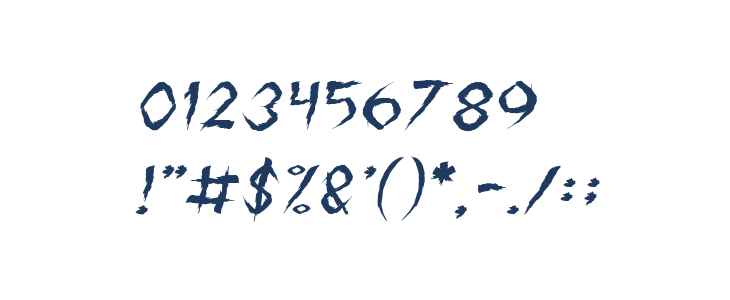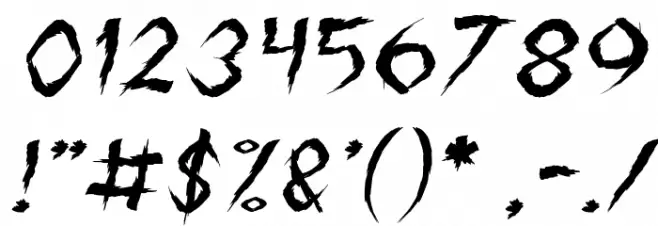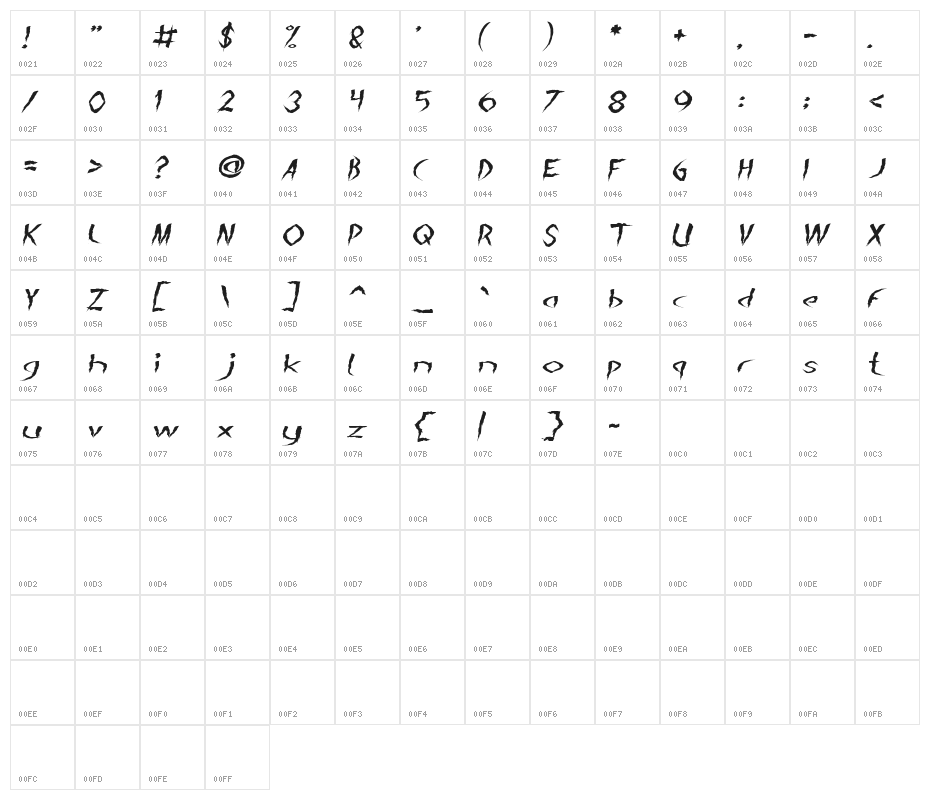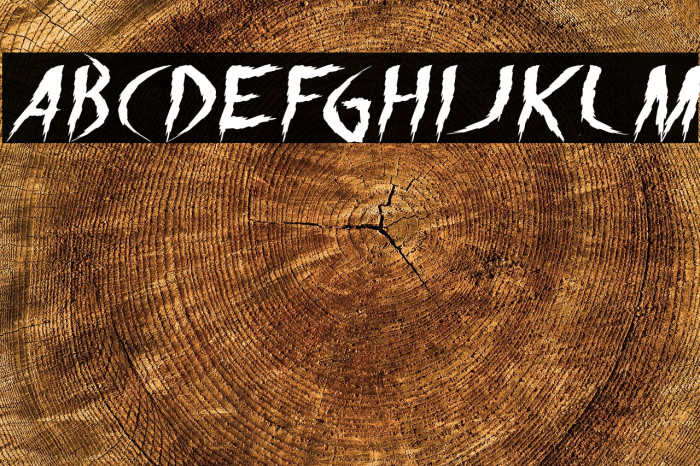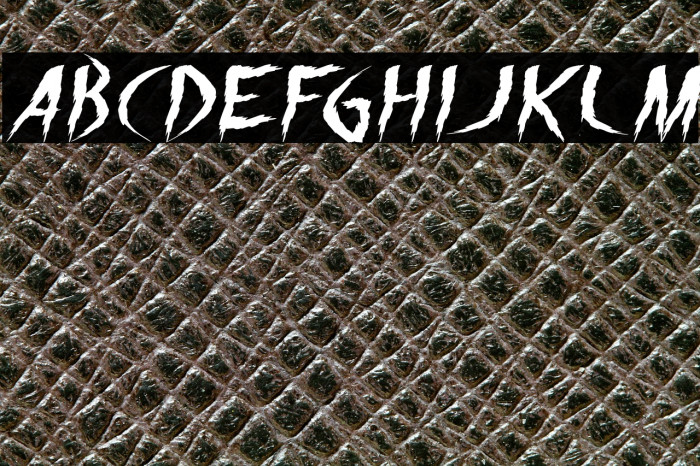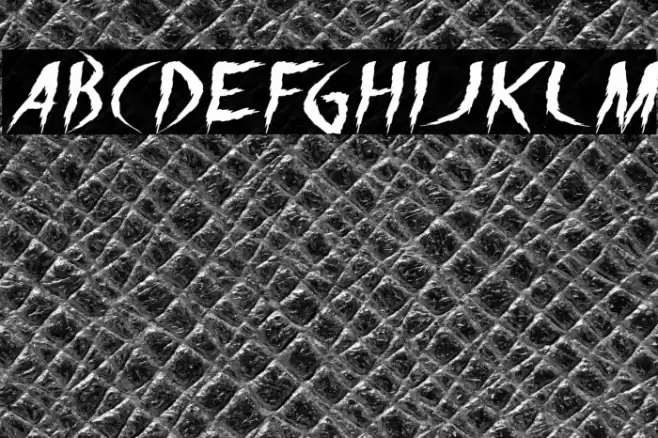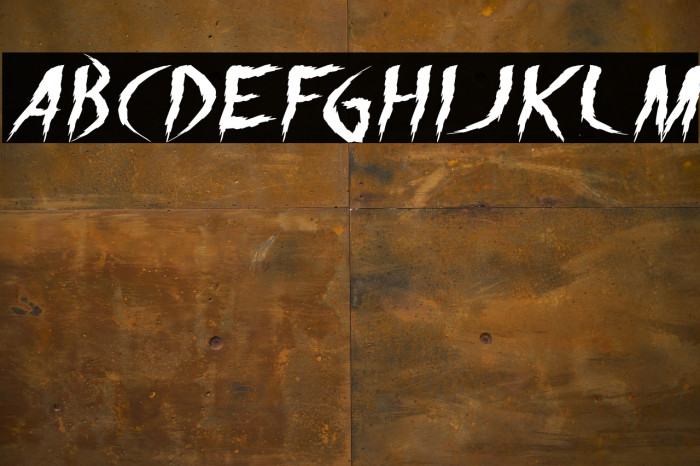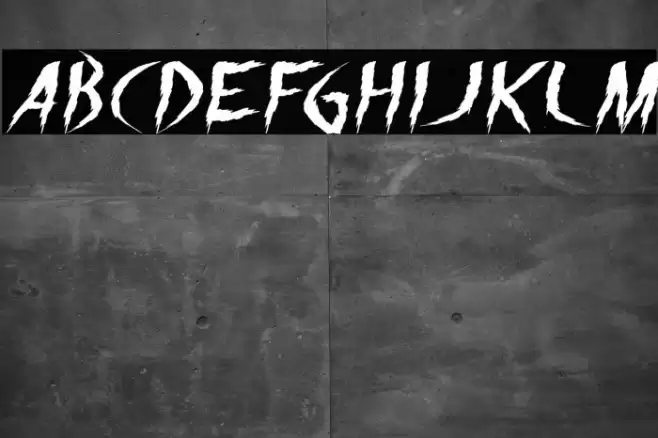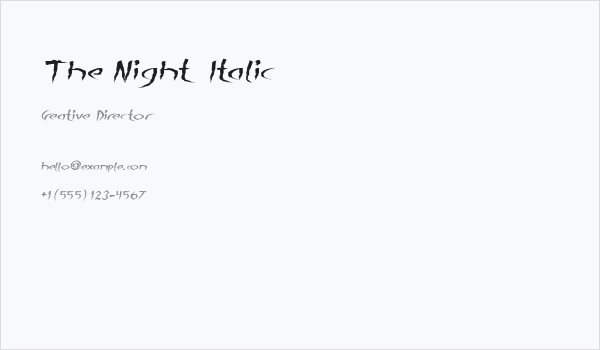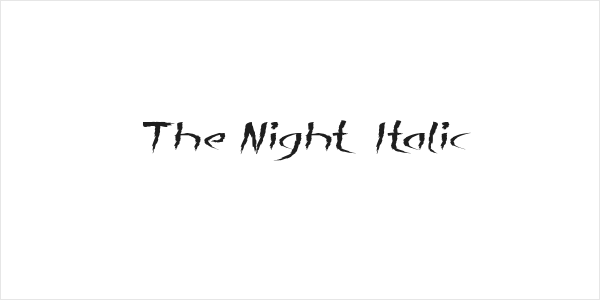
The Night Italic Font
The Night Italic Description
This font features a dramatic and jagged style, reminiscent of sharp, claw-like strokes. The characters have an aggressive, edgy appearance, with irregular and pointed edges that create a sense of movement and intensity. The uppercase and lowercase letters maintain a consistent style, with each character exhibiting a unique, hand-drawn quality. The numbers and special characters follow the same aesthetic, adding to the font's cohesive look. This font is ideal for projects that require a bold and striking visual impact, such as horror-themed designs or edgy branding.
| Proposed Projects | Perfect for horror-themed designs, edgy branding, album covers, and Halloween promotions. |